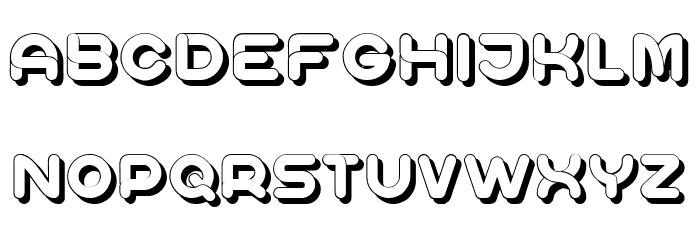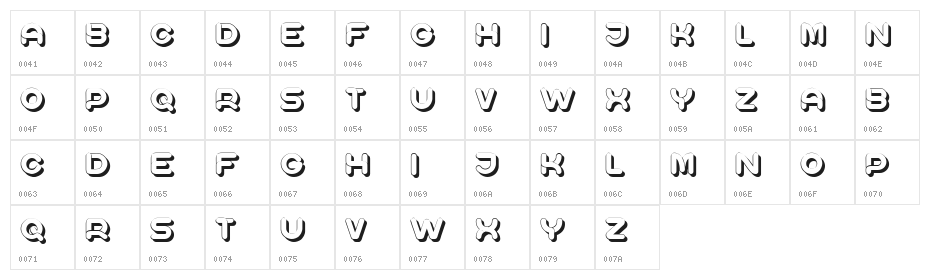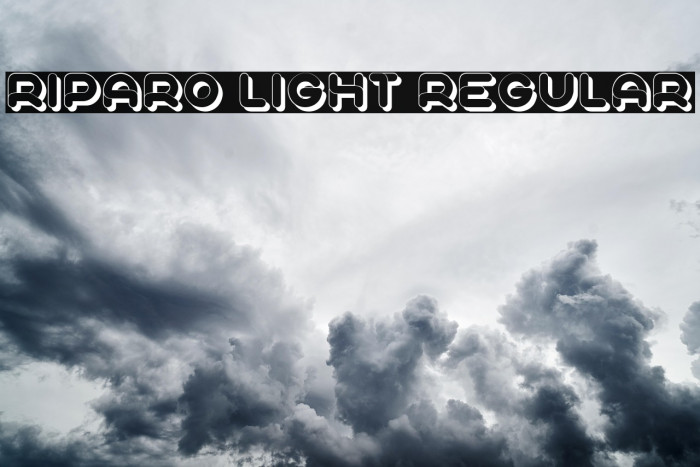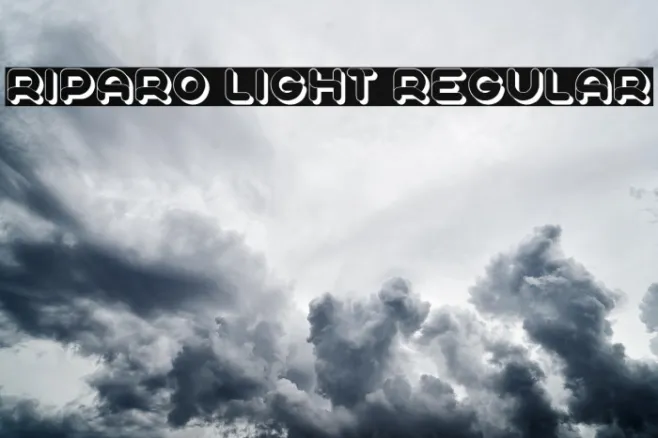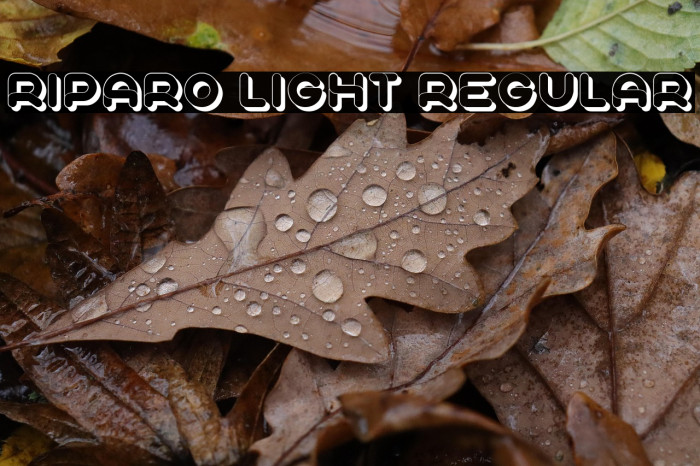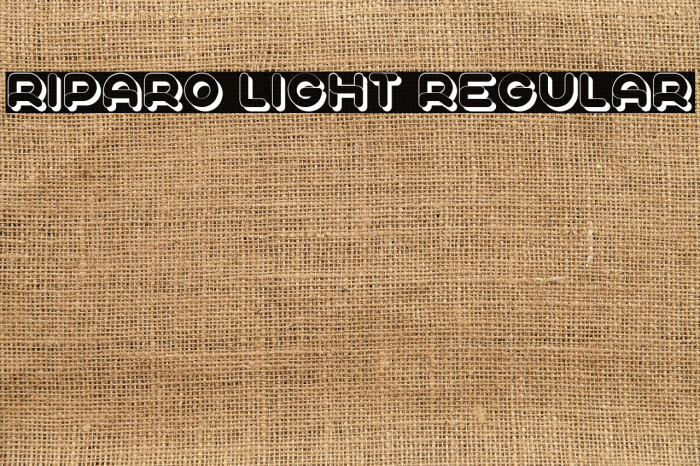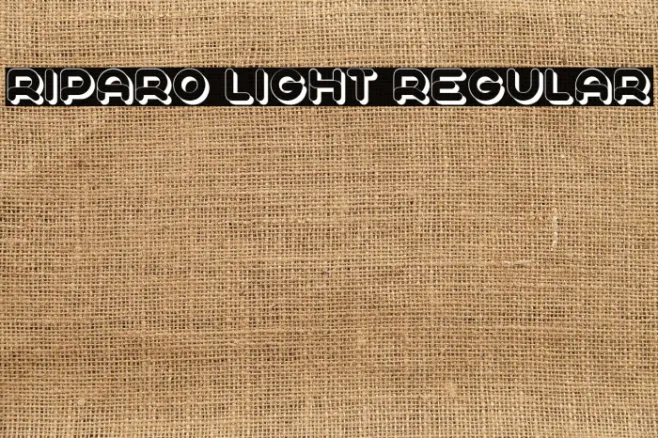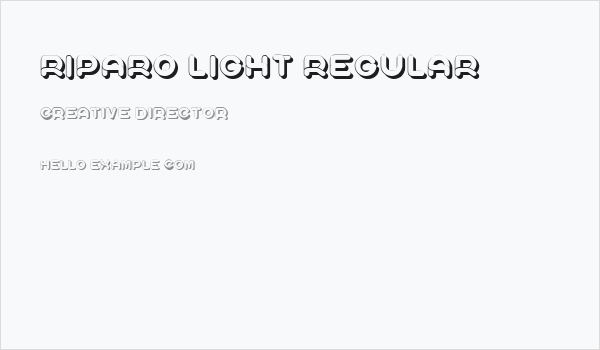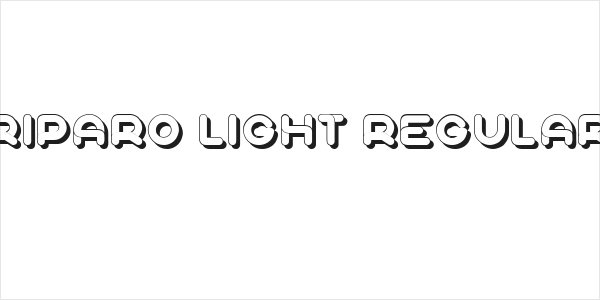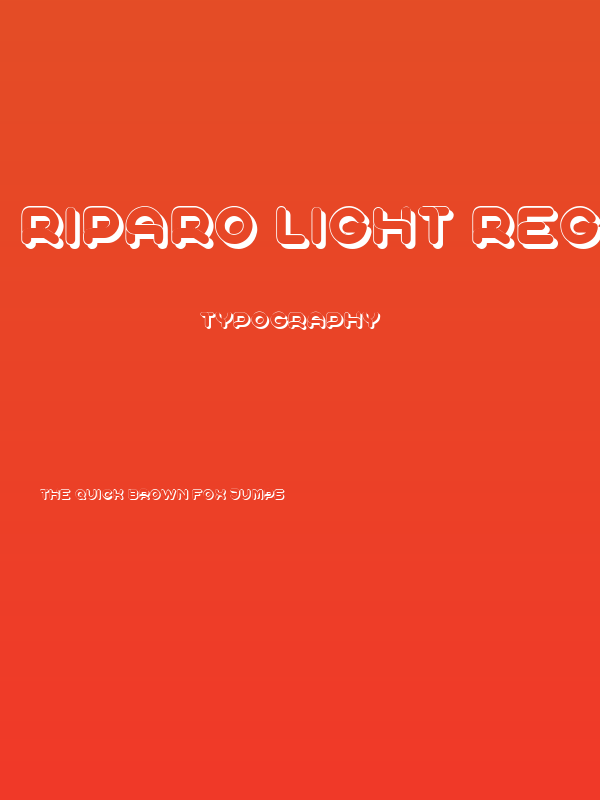
Riparo Light Regular Font
Riparo Light Regular Description
This font features a bold, three-dimensional appearance with a distinct shadow effect that gives it a striking, eye-catching look. The characters are uppercase, with a consistent width and a geometric structure that emphasizes clarity and modernity. The shadow effect adds depth, making the letters appear as if they are slightly raised from the surface. The design is clean and structured, with smooth curves and sharp edges that enhance its contemporary aesthetic. This font is ideal for projects that require a strong visual impact, such as posters, headlines, and branding materials. Its unique style makes it stand out, while still maintaining readability and versatility.